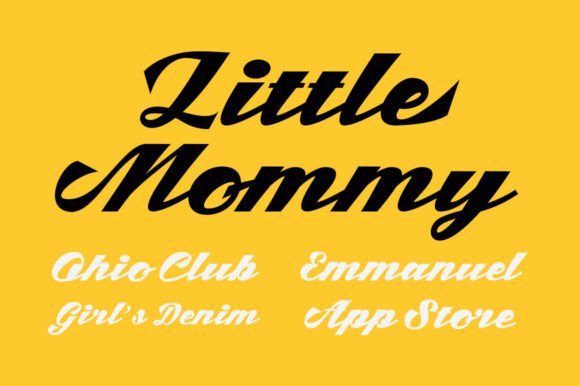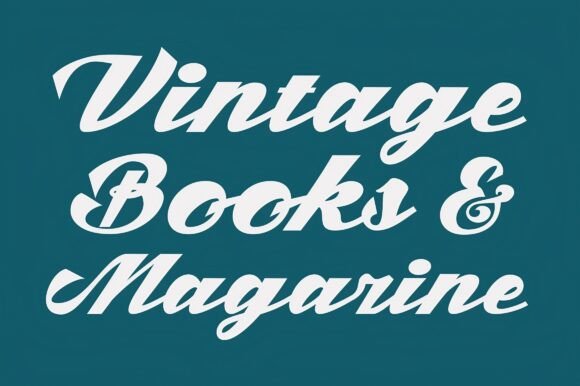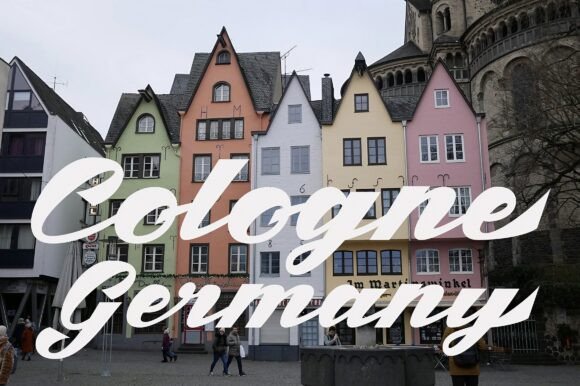
Introduction to Mantel Font
Mantel is a handcrafted font that exudes a sense of personality and character.
Its flowing curves and confident strokes evoke a vintage charm, reminiscent of classic signage and handwritten lettering The font’s bold weight gives it a strong presence, making it perfect for headlines, logos, and any design that demands attention.
Key Features of Mantel Font
Why Choose Mantel Font?